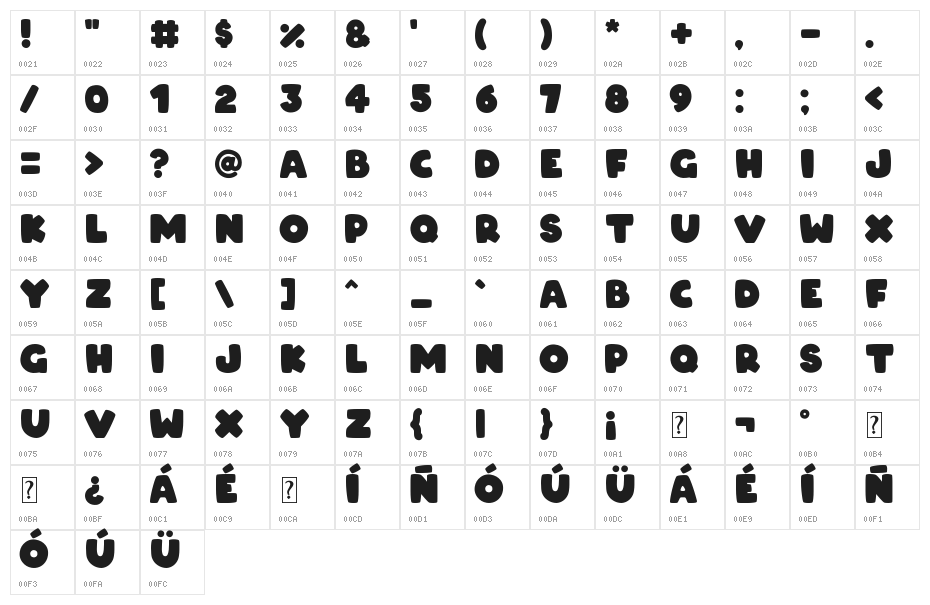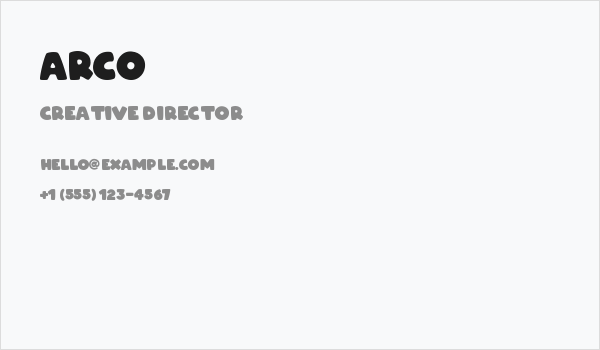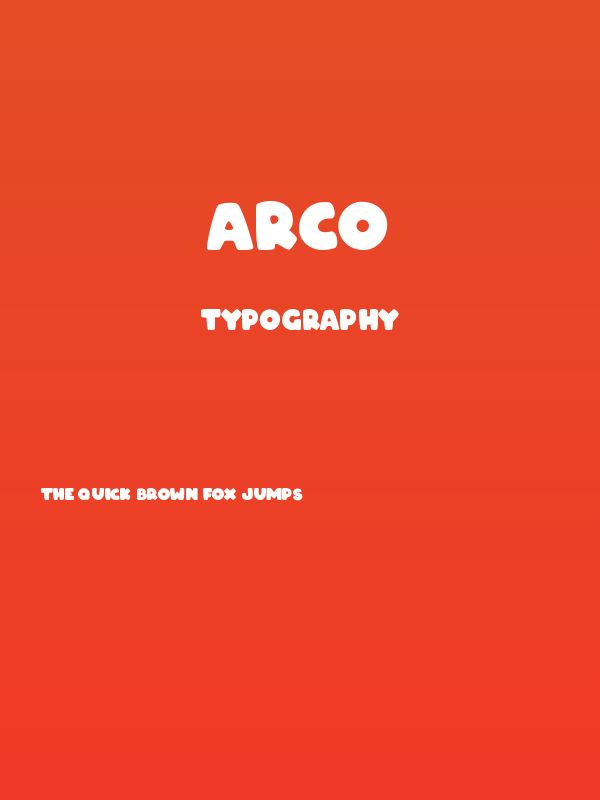
ARCO Font
ARCO Description
This font features bold, rounded characters with a playful and chunky appearance. The letters are uniformly thick, giving them a strong presence on the page. The rounded edges and lack of sharp angles contribute to a friendly and approachable feel. The numbers and special characters maintain the same bold and rounded style, ensuring consistency throughout. This font is highly legible and stands out due to its substantial weight and unique style, making it ideal for eye-catching designs.
| Proposed Projects | Perfect for children's books, playful branding, posters, and any design needing a fun and bold statement. |